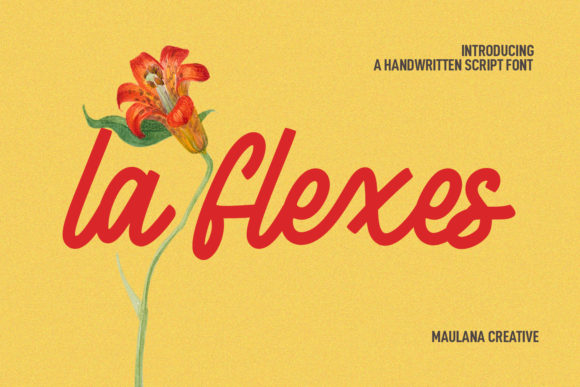
Dive into the swirling elegance of La Flexes Font, a script masterpiece born from the creative genius of Maulana Creative. This exquisite font dances across your screen, its graceful curves and delicate strokes exuding a timeless charm that will transform your designs into works of art.
La Flexes Font possesses an innate ability to elevate the ordinary into the extraordinary. Its intricate details and flowing lines evoke a sense of sophistication and refinement, making it the perfect choice for adding a touch of class to your projects. Unleash your creativity and let La Flexes Font guide you as you craft stunning logos, eye-catching social media graphics, and unforgettable branding materials.
Step into a world of versatility with La Flexes Font. Its adaptability shines across a wide spectrum of design genres, effortlessly blending with both modern and vintage aesthetics. Whether you seek to create whimsical invitations, elegant wedding stationery, or captivating posters, La Flexes Font will effortlessly elevate your vision.
Immerse yourself in the allure of La Flexes Font, a script font that captures the essence of timeless beauty. Its intricate letterforms, adorned with delicate flourishes, will add a touch of enchantment to your designs. Allow your imagination to soar as you explore the endless possibilities that await you with La Flexes Font.
Indulge in the artistry of La Flexes Font, a script font that is more than just a collection of letters. It is an expression of creativity, a reflection of your unique style. With La Flexes Font, you hold the power to transform your designs into captivating masterpieces that will leave a lasting impression on your audience.